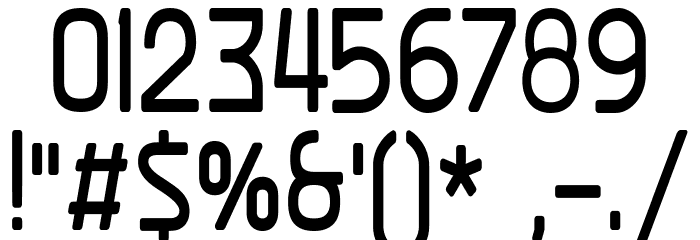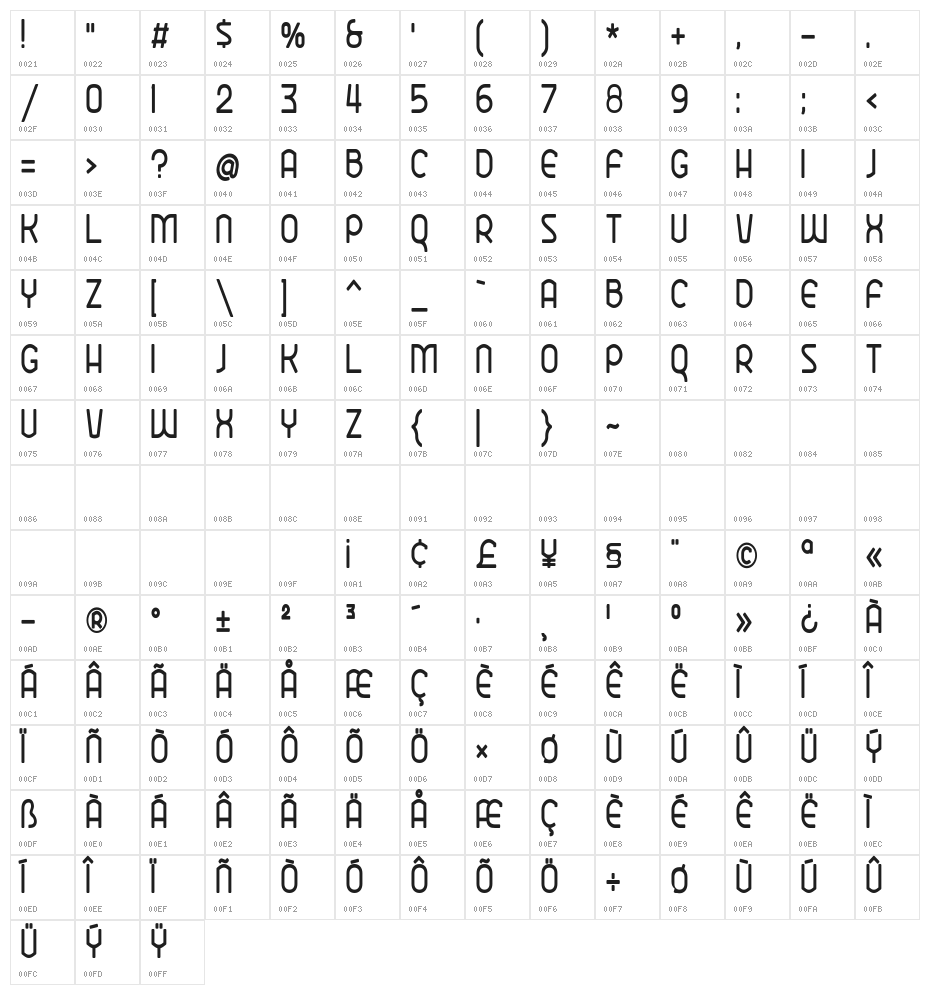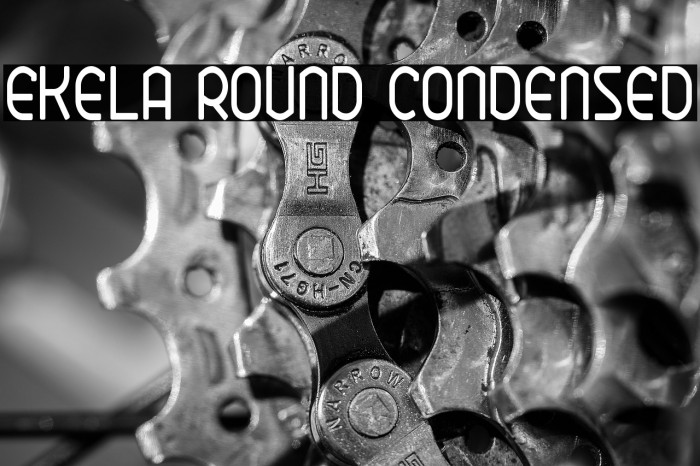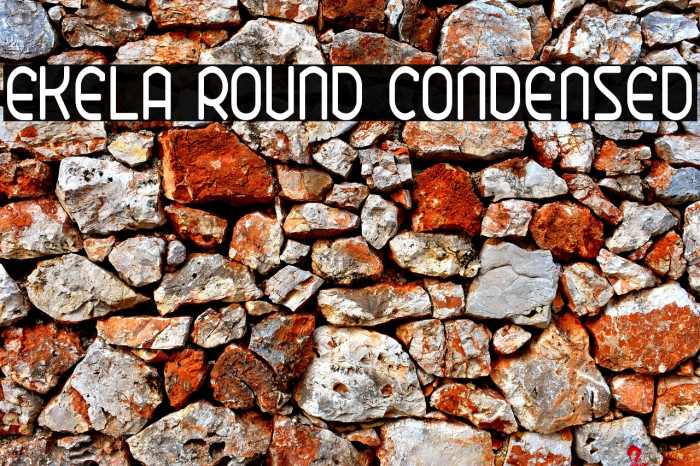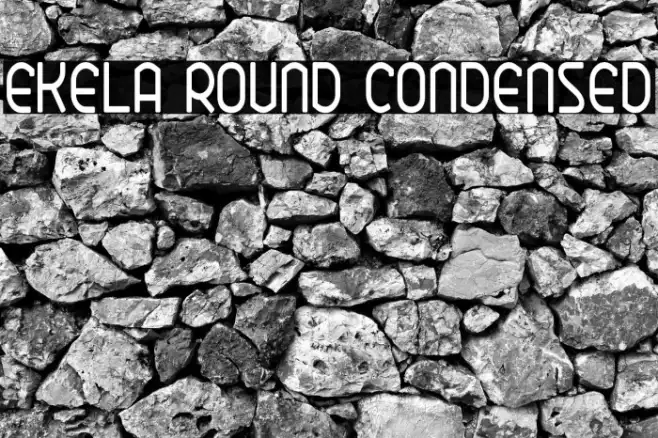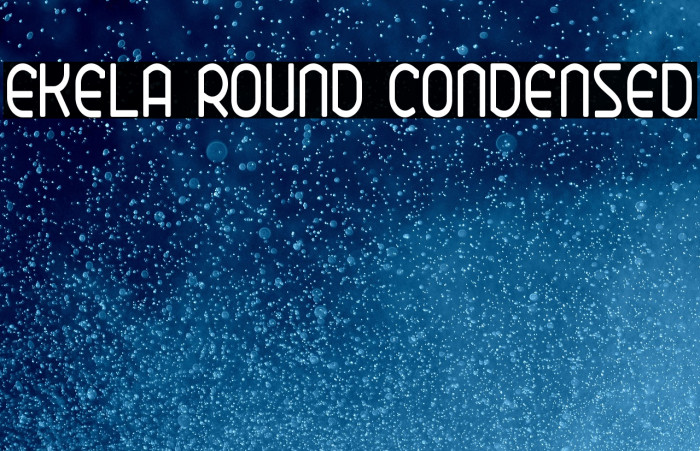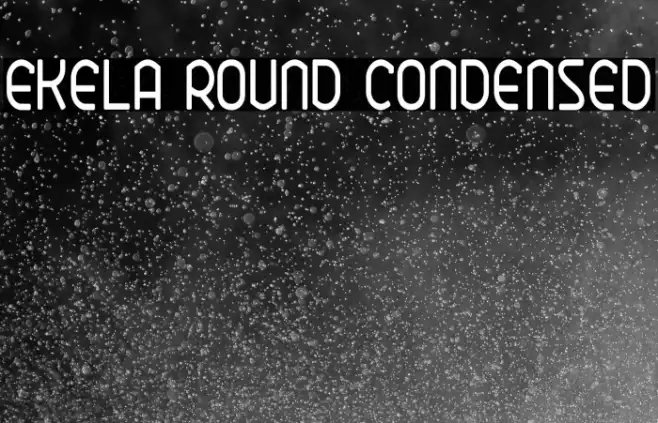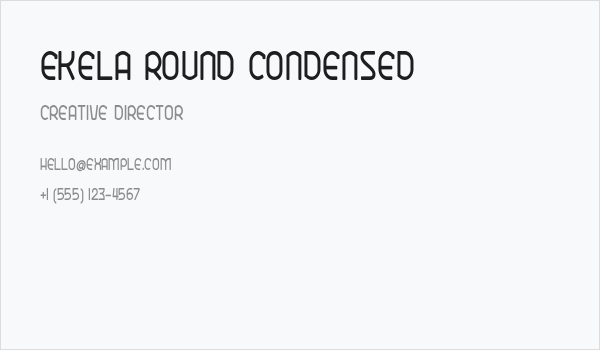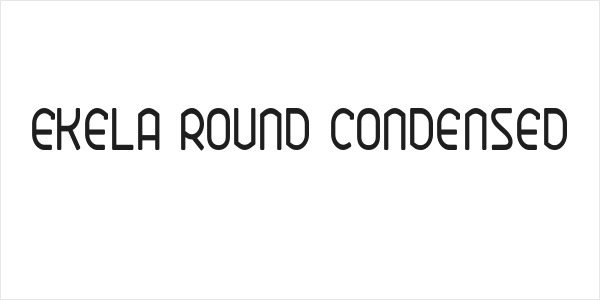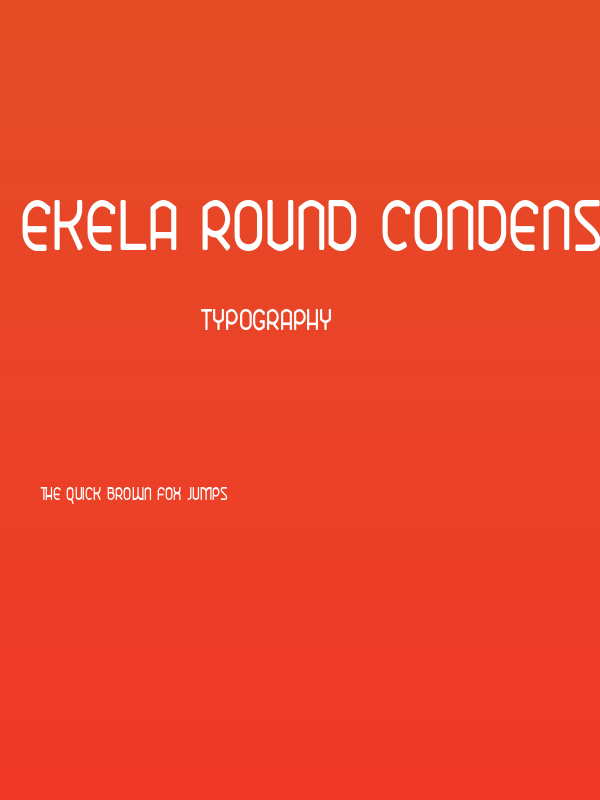
Ekela Round Condensed Font
Ekela Round Condensed Description
This font features a modern, rounded style with a condensed width, giving it a sleek and contemporary appearance. The characters are uniform in stroke width, contributing to a clean and minimalist look. The rounded edges soften the overall aesthetic, making it approachable and friendly. The uppercase and lowercase letters maintain a consistent height, which enhances readability. The numerals and special characters are designed to match the overall style, ensuring visual harmony across different types of content. This font is versatile, suitable for both digital and print media, and can be used effectively in various design contexts.